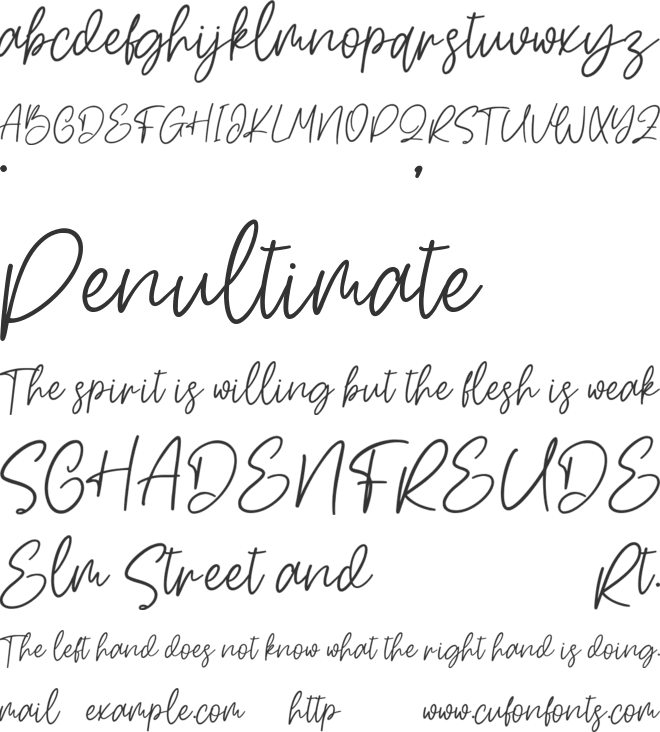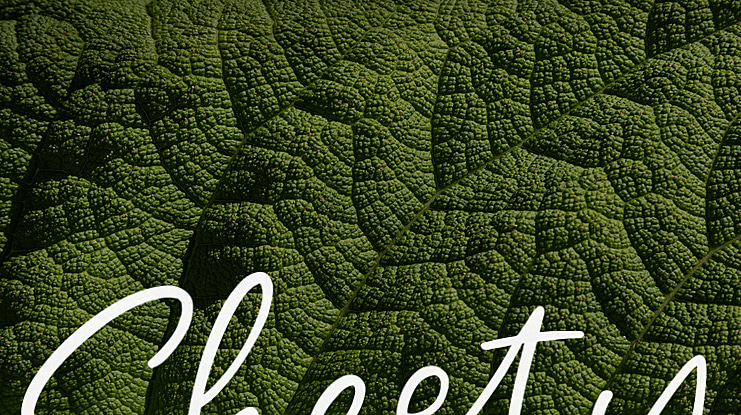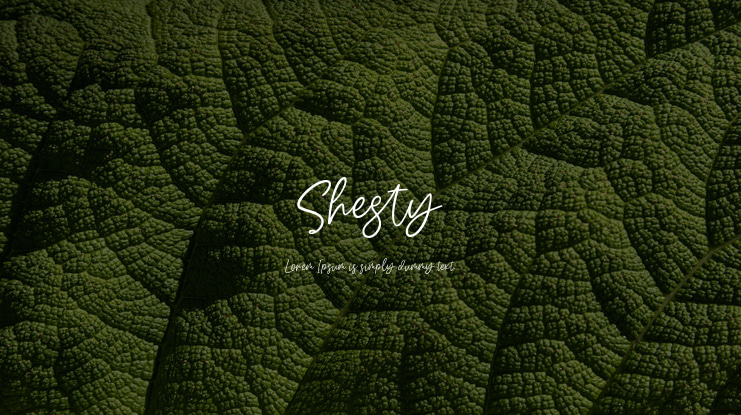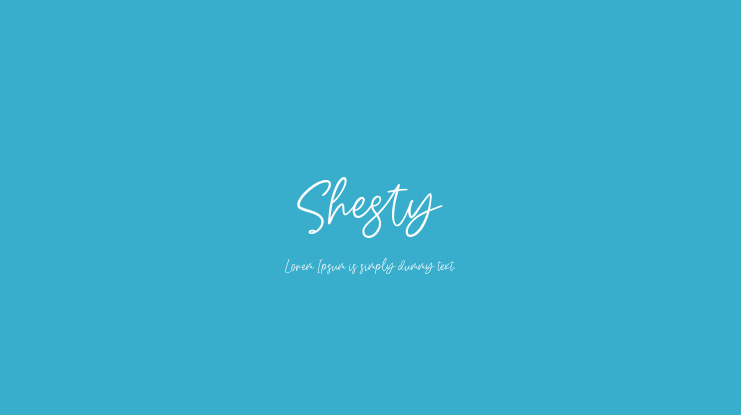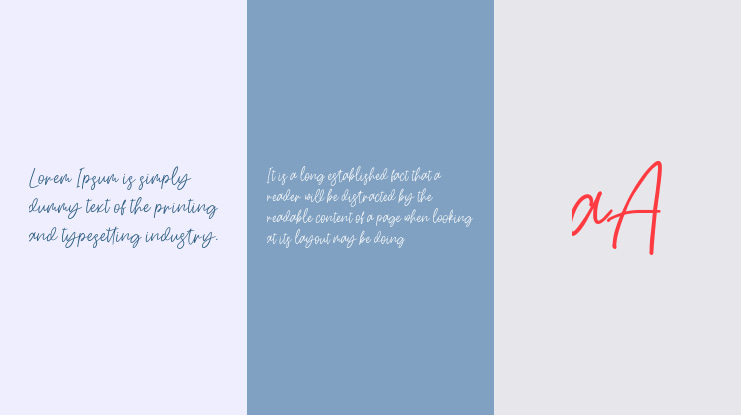
Shesty Font
Shesty Script Font is a beautiful, thin lettered and cursive script font. It has a classy, elegant and modern look that can be used for logos, branding, invitations, stationery, wedding designs, social media posts, and much more!
– Uppercase, Lowercase, Numeral & Punctuation
– Alternate Letters, Ligature & Swash/Tail